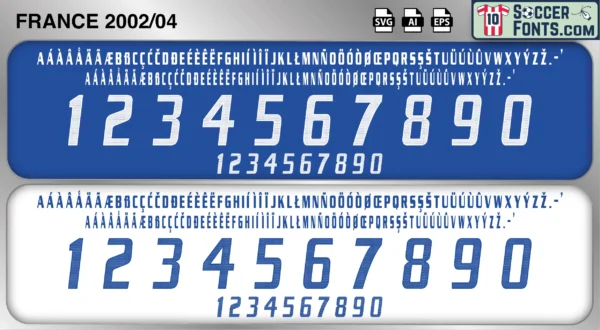
France 2002-04 Font
The France 2002-04 font is an editable soccer jersey lettering design in vector format inspired by the France kit style used during the 2002-04 football seasons. This football font artwork is prepared for football shirt recreations, custom jersey projects, football kit mockups and sports graphic design workflows.
The 2002-04 period followed one of the most surprising moments in World Cup history as defending champions France were eliminated during the group stage of the 2002 FIFA World Cup. Despite possessing a squad filled with elite players such as Zinedine Zidane, Thierry Henry, Patrick Vieira, Marcel Desailly, Claude Makélélé and Robert Pirès, injuries and difficult circumstances prevented France from repeating its previous success. The national team responded by rebuilding and preparing for UEFA EURO 2004, seeking to re-establish itself among Europe’s leading football nations while maintaining the high standards set during the previous championship-winning era.
The France 2002-04 font became associated with a period of transition between two important chapters in French football history. France shirts from this era remain notable because of their connection with the final international years of several legendary players who helped define the nation’s golden generation. The France 2002-04 font reflects a period of resilience, expectation and adaptation as France worked to recover from World Cup disappointment while continuing to compete at the highest levels of international football.